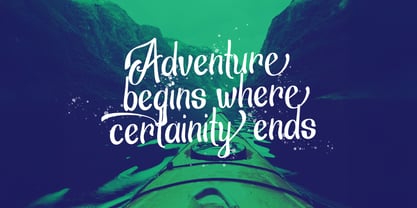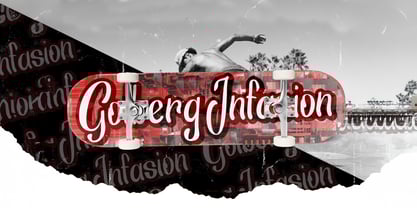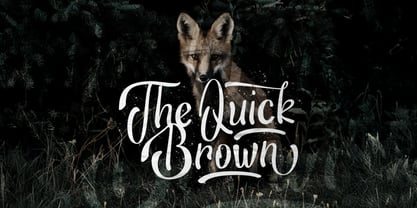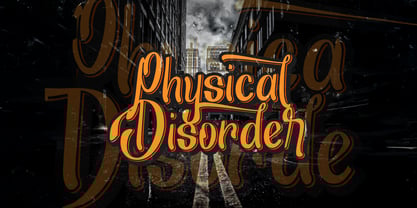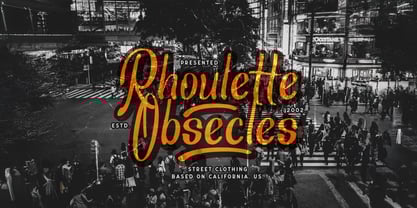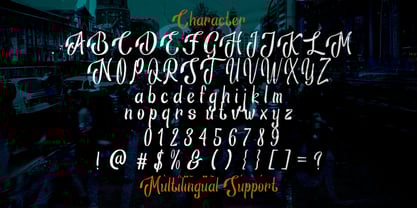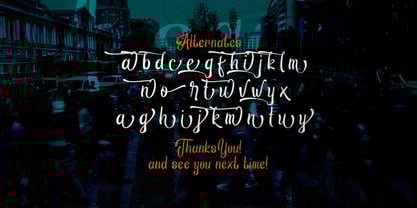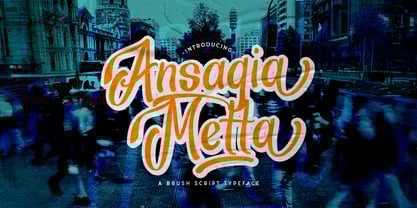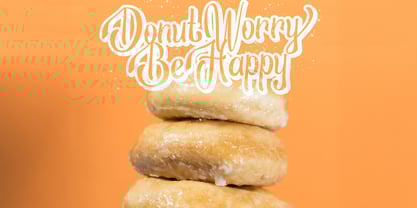
Ansagia Metta
by Stringlabs Creative Studio
The Ansagia Metta Font Family was designed by Virgiawan Listanto and published by Stringlabs Creative Studio. Ansagia Metta contains 1 styles.
Ansagia Metta is a striking and dynamic script font designed to command attention. Featuring strong, fluid letterforms with a touch of elegance, this bold font brings personality and impact to any project. Its expressive curves and modern design make it ideal for both print and digital designs that require an energetic, yet refined look.
Designers: Virgiawan Listanto
Publisher: Stringlabs Creative Studio
Foundry: Stringlabs Creative Studio